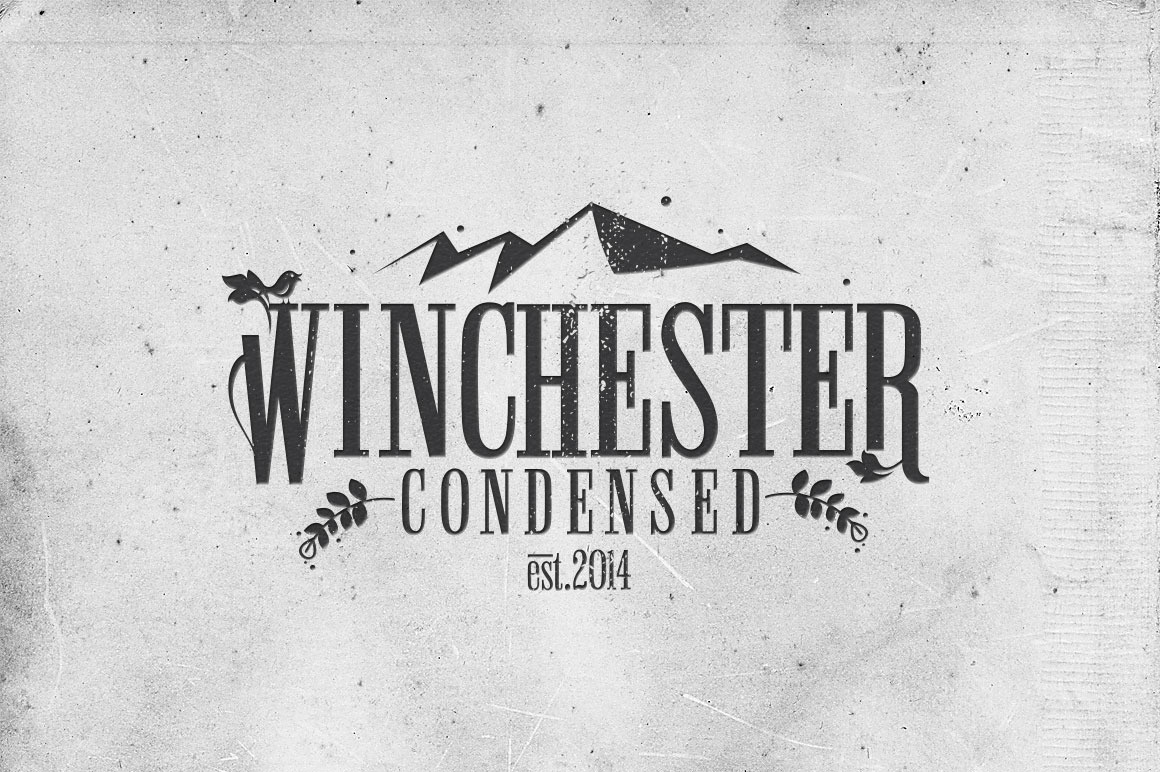
Winchester Condensed Font
This font is designed to recreate old typography and is best for logos and insignia designs. This font contains 4 sets of glyphs.